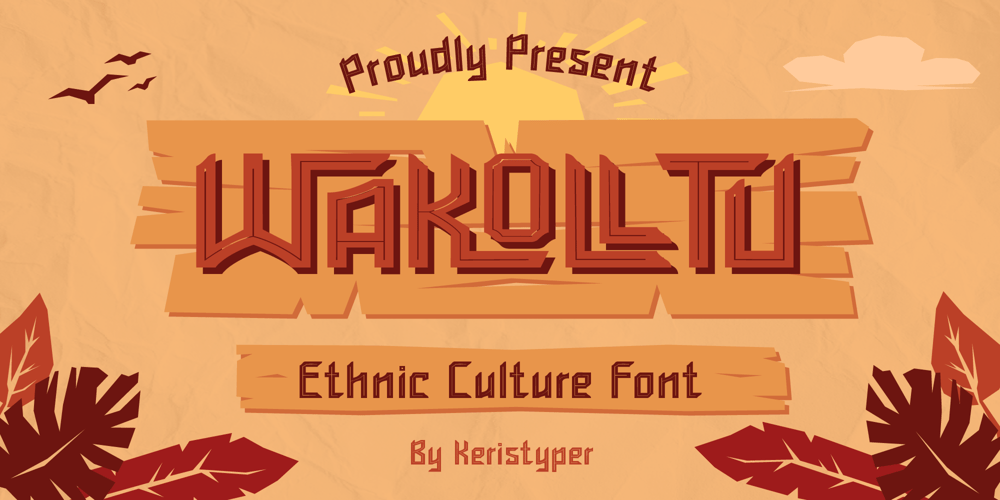
Wakolltu
Wakolltu font
Wakolltu Font Family was designed by Tezar Tantular and published by Keristyper Studio. Wakolltu contains 1 styles and family package options. Wakolltu is ethnic culture font. it has a fun character and display typeface. This font is good for logo design, Social media, Movie Titles, Books Titles, short text even long text letters, and good for your secondary text font with sans or serif.**Featured:*** Standard Uppercase & Lowercasea* Numeral & Punctuation* Multilingual : ä ö ü Ä Ö Ü ß ¿ ¡* Alternate & Ligature* PUA encodedWe recommend programs that support the OpenType feature and the Glyphs panel such as Adobe applications or Corel Draw. so you can use all the variations of the glyphs.Hope you enjoy our fonts!